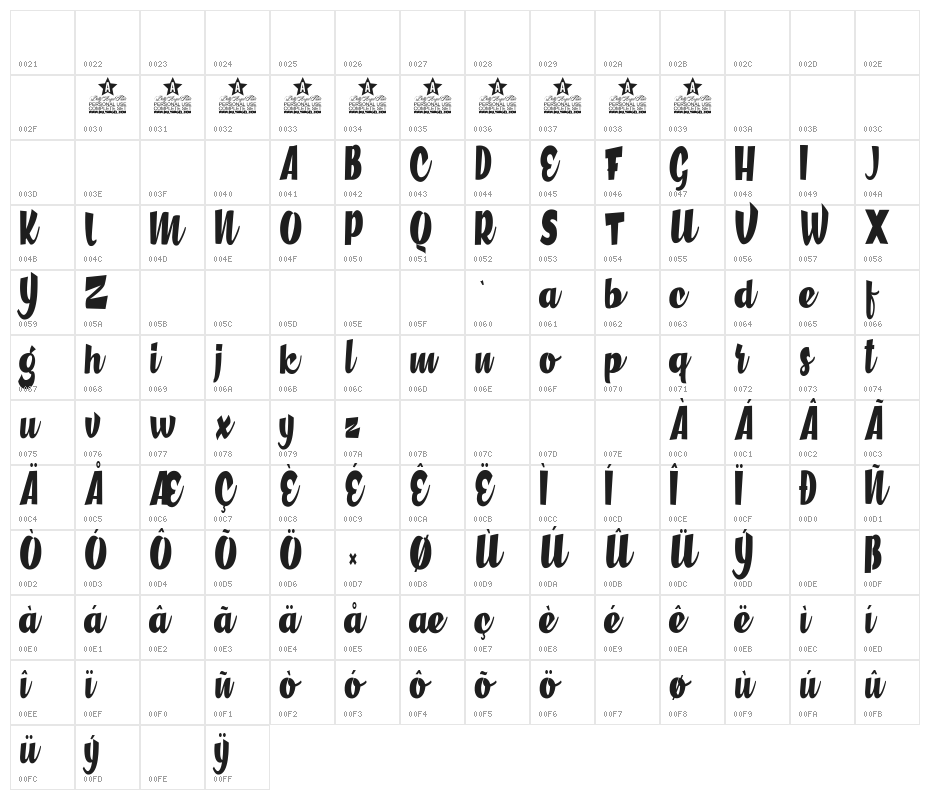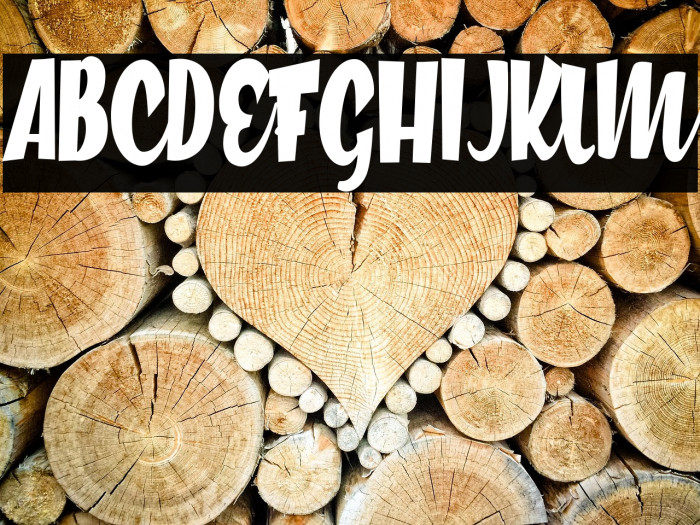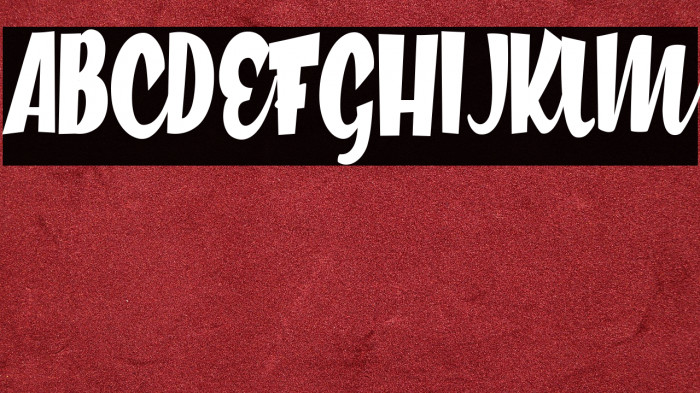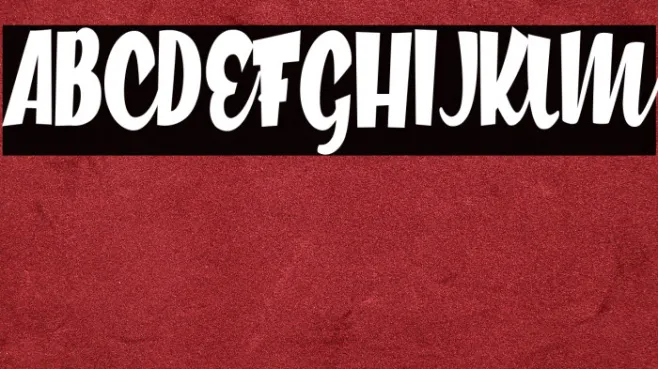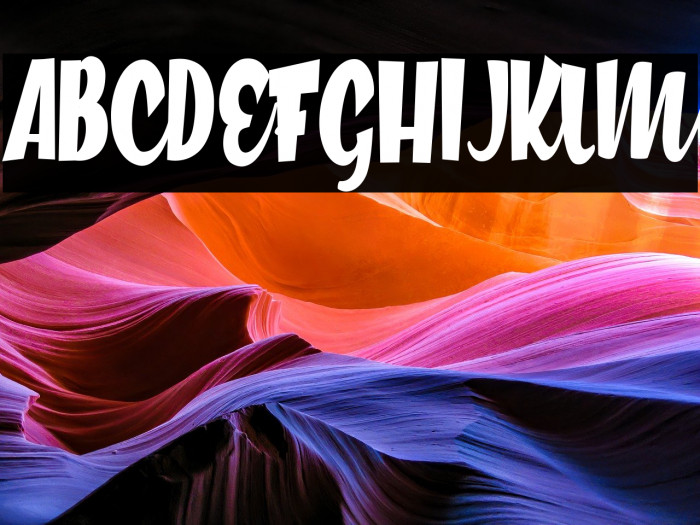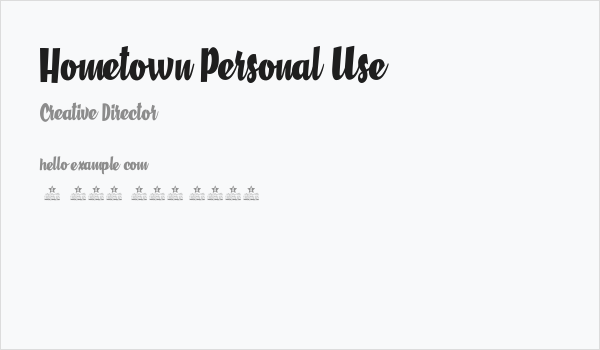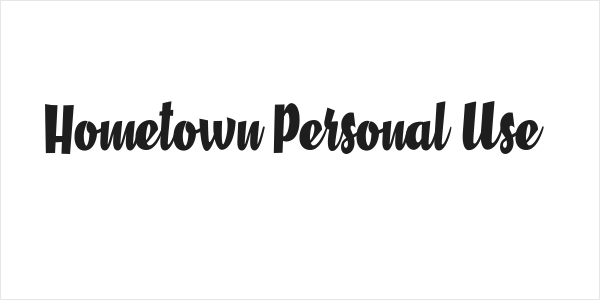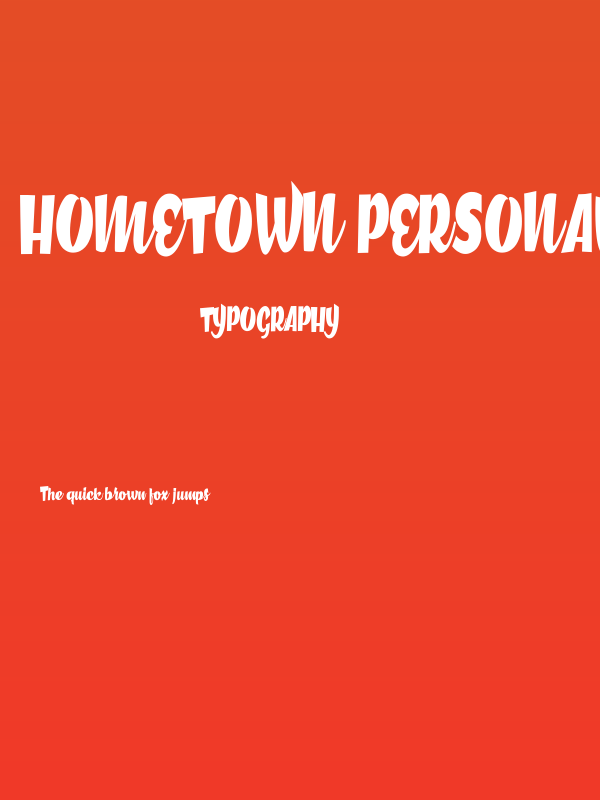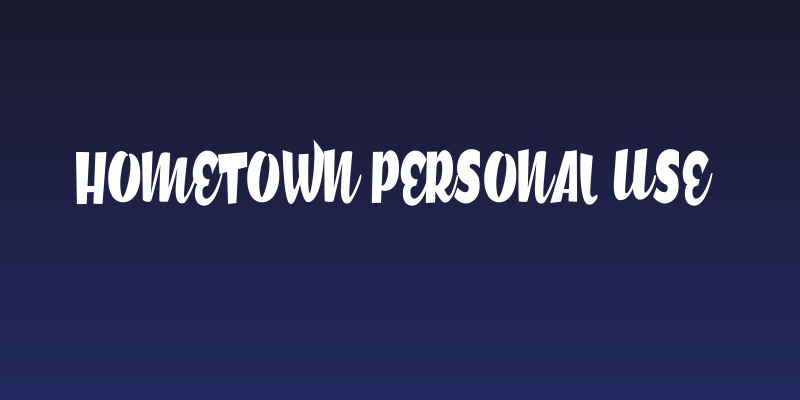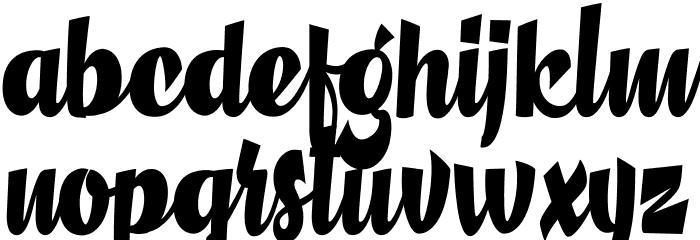
Hometown Personal Use Font
Hometown Personal Use Description
This font features a bold and dynamic style with a strong presence. The uppercase letters are characterized by thick, sweeping strokes and a slight slant, giving them a sense of motion and energy. The lowercase letters maintain this energetic feel, with some characters having unique, playful curves. The overall design is reminiscent of hand-painted signage, offering a vintage yet modern appeal. The numbers and special characters are consistent with the bold style, ensuring uniformity across all glyphs.